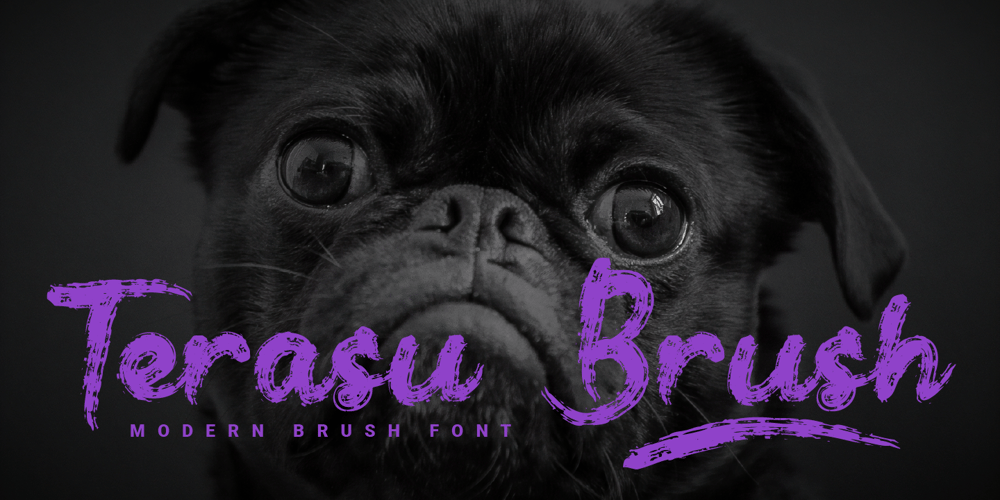
Terasu Brush
Terasu Brush font
Terasu Brush Font Family was designed by Prio Nurokhim Aji and published by Prioritype. Terasu Brush contains 1 styles and family package options. Introducing a new brush font with a cool texture, you can use in your project to apply to music events, clothing products, crafts, image previews, creative posts and much more. As an illustration you can see some of the preview above.Features:-Uppercase-Lowercase-Numeral-Punctuation-Multilingual-Ligature-SwashThanks.